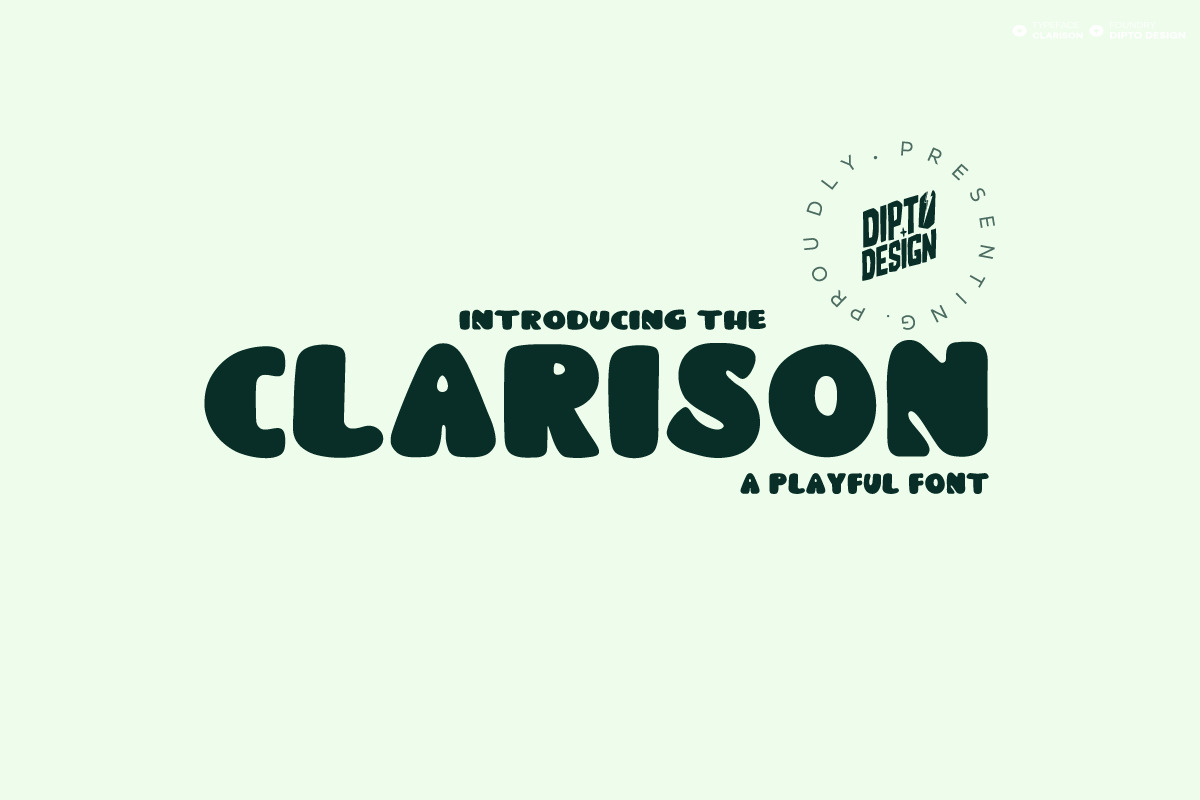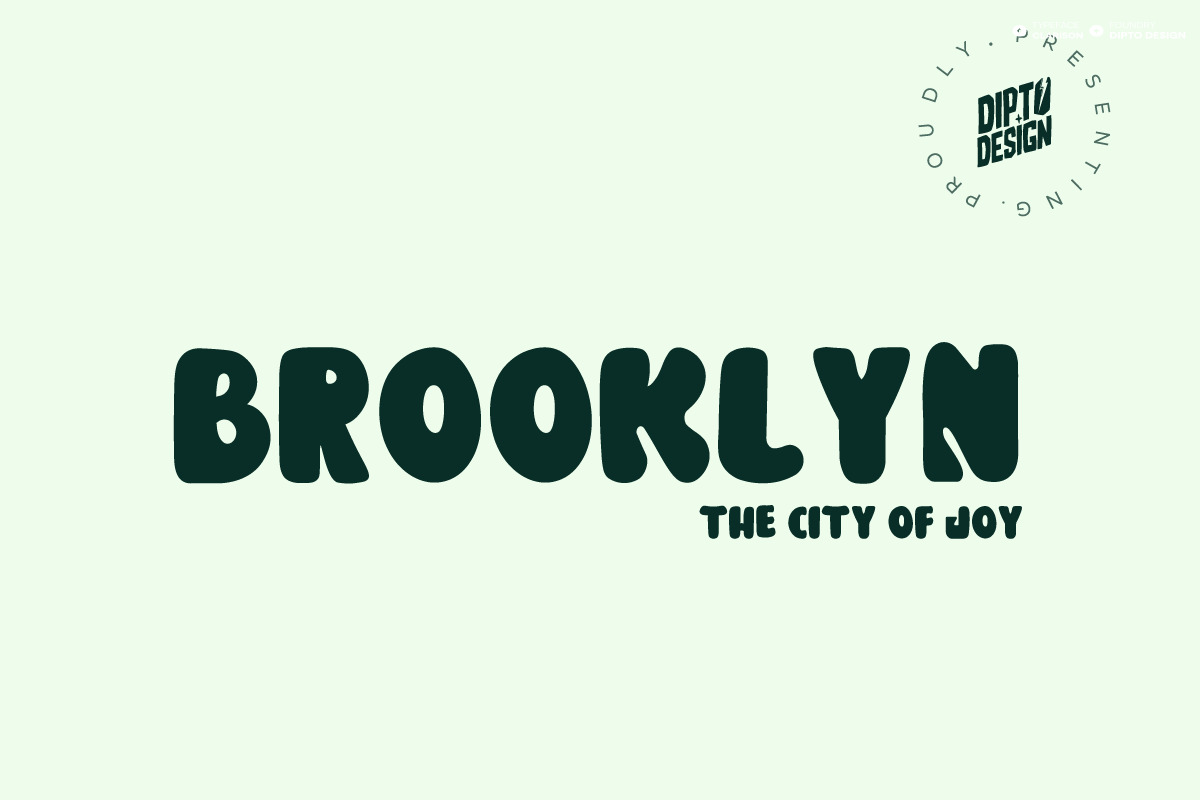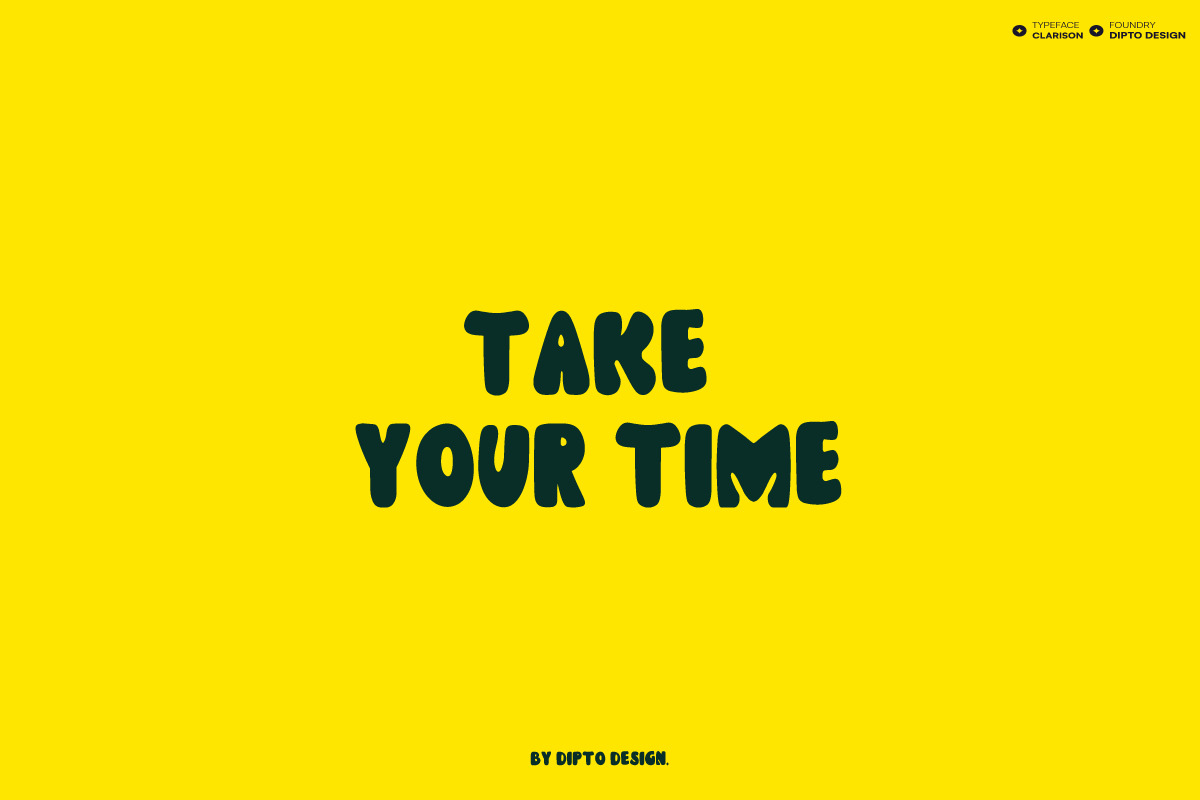
Clarison Font
Introducing “Clarison,” a delightfully playful font engineered to inject a light-hearted charm into your designs. Delivered in a wide spectrum of formats including OTF, TTF, EOT, WOFF, and WOFF2, Clarison’s standout versatility makes it the perfect companion for a myriad of applications. To extend your creative possibilities, each character comes as a stand-alone PNG file, providing endless opportunities for unique and personalized design constructs. Experience the playful dynamism of Clarison and let its whimsical charisma reinvigorate your projects.